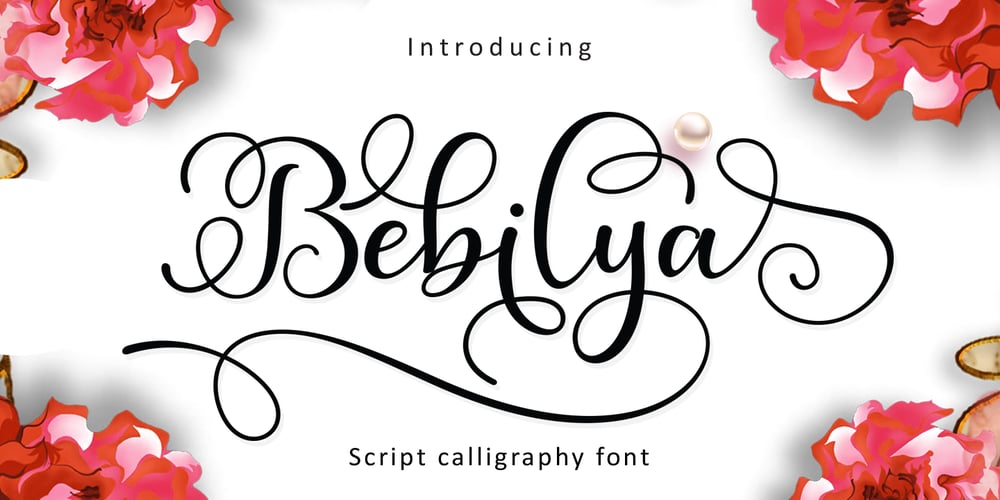
Bebiliya script Font Family was designed by Nasrullah and published by Sulthan Studio. Bebiliya script contains 1 styles and family package options. This handwriting is very fresh and elegant, I wrote it beautifully, with many strokes in it. Can be used for various purposes according to your needs, lovers of fonts, this is amazing, I hope you will enjoy it :)Includes many alternative characters. Coded with Unicode PUA, which allows full access to all additional characters without having special design software. Mac users can use Font Book. Windows users can use the Character Map to view and copy one of the additional characters to paste into your favorite text editor. For people who have software that can use opentype: Alternatives can be accessed by turning on the “Alternative Style” and “Ligature” buttons on the Photoshop Characters panel, or through any software with glyph panels, such as Adobe Illustrator, Photoshop CC, Inkscape.